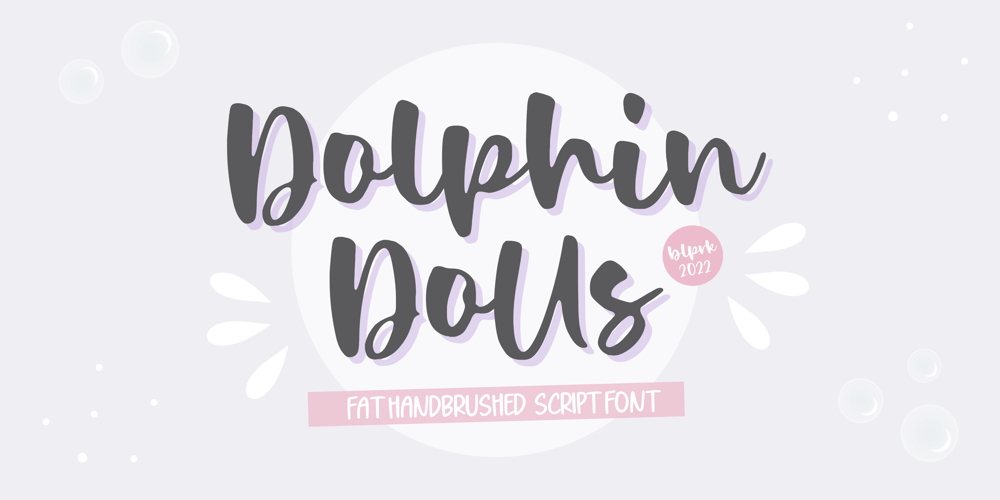
Dolphin Dolls Font Family was designed by Restu Angga and published by Balpirick. Dolphin Dolls contains 1 styles and family package options. Dolphin Dolls is a Handbrushed Script Font.Dolphin Dolls is a cute and vintage styled handwritten font. Whatever the topic, this font will be a wonderful asset to your font library, as it has the potential to enhance any creation.- also multilingual supportEnjoy the font, feel free to comment or feedback, send me PM or email.Thank you!